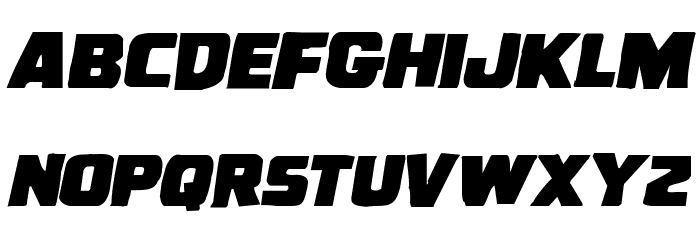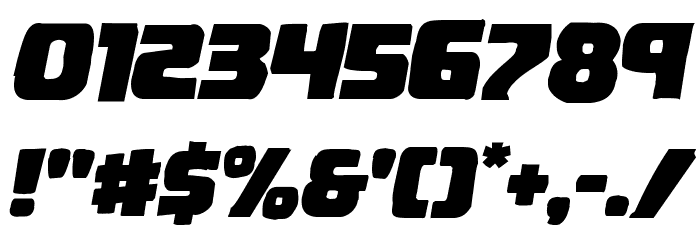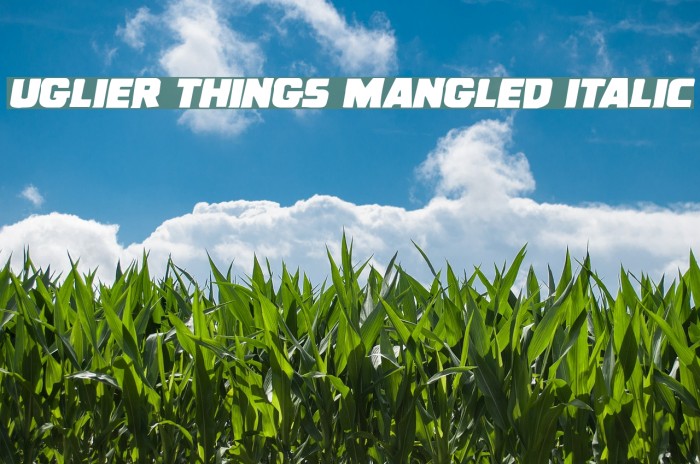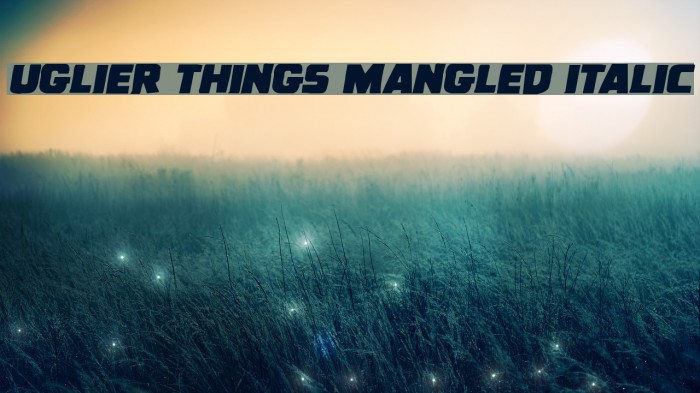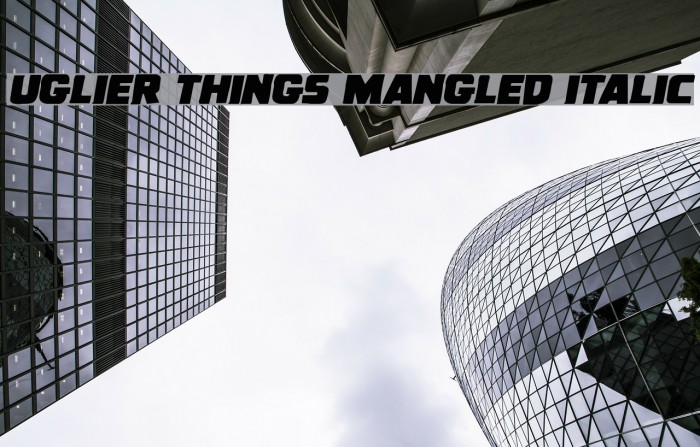
Uglier Things Mangled Italic Font
This font features a bold and dynamic style with a strong italic slant, giving it a sense of movement and energy. The characters are robust and thick, with a slightly condensed width that enhances their impact. The strokes are consistent in weight, providing a uniform appearance across all characters. The font includes a full set of uppercase and lowercase letters, numerals, and a variety of special characters, making it versatile for various design needs. Its boldness and slant make it particularly suitable for attention-grabbing headlines and titles.
A bold, italic font with a dynamic and energetic style.
- Proposed Projects: Ideal for sports branding, dynamic posters, and bold headlines.